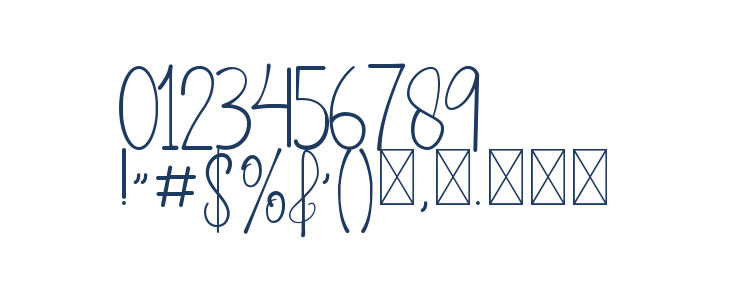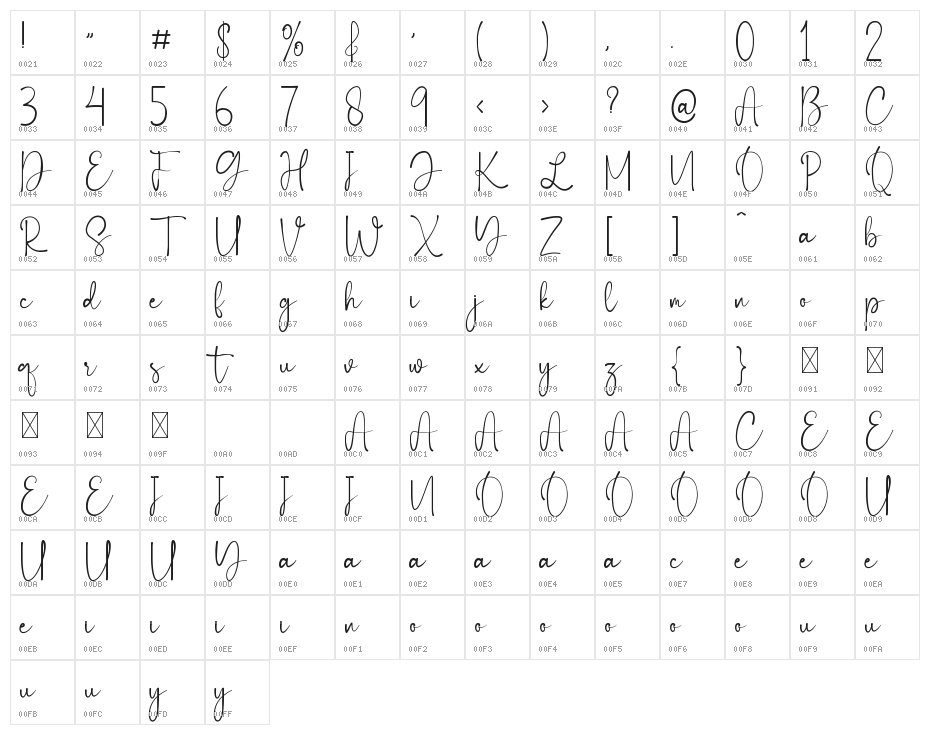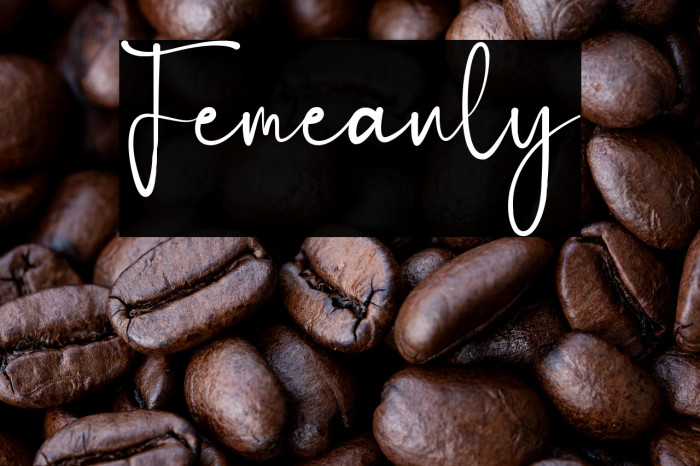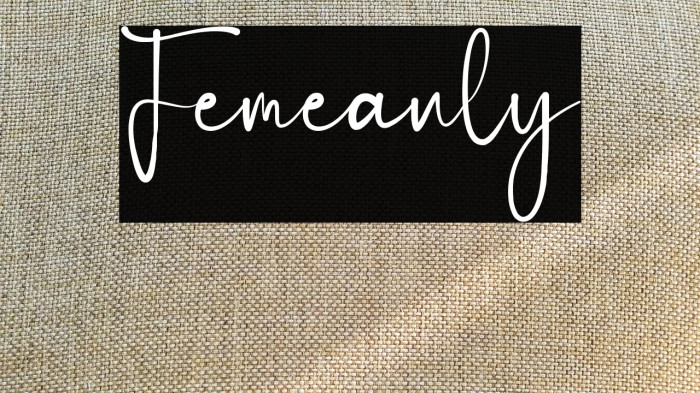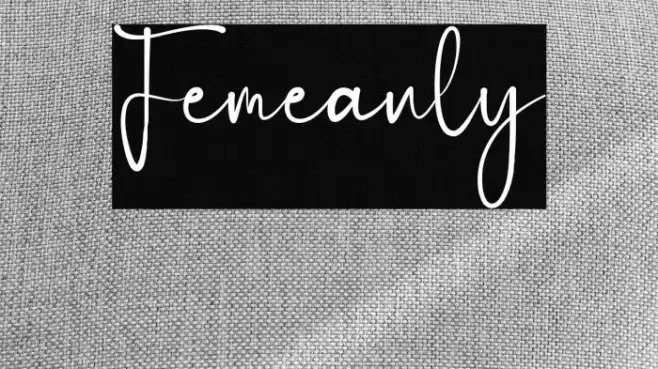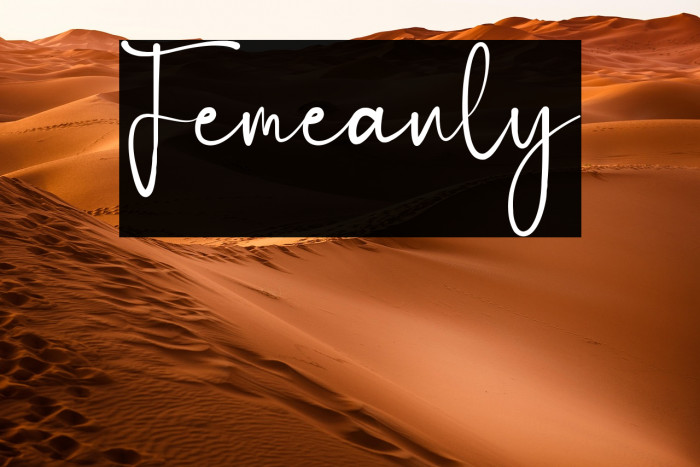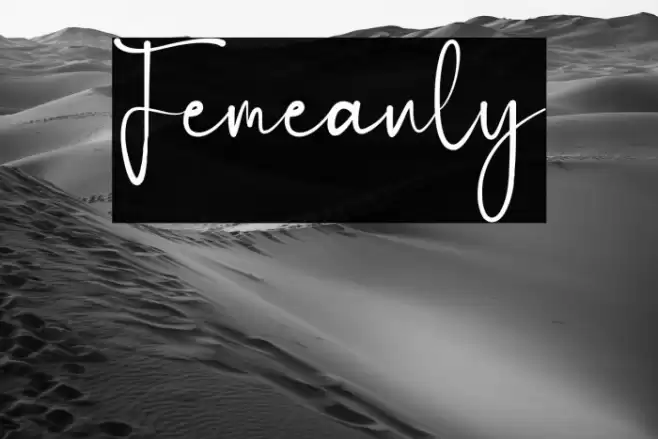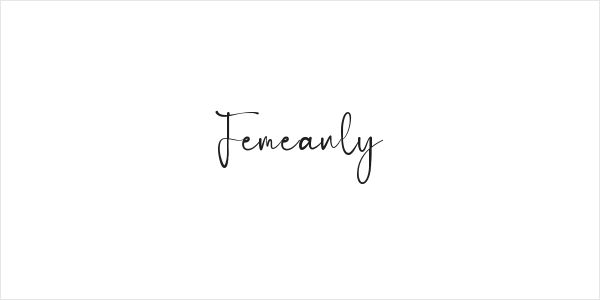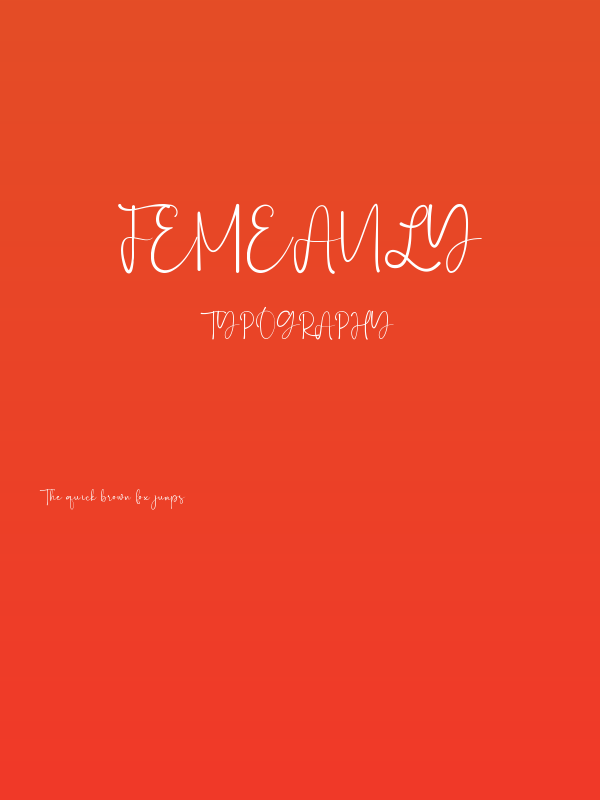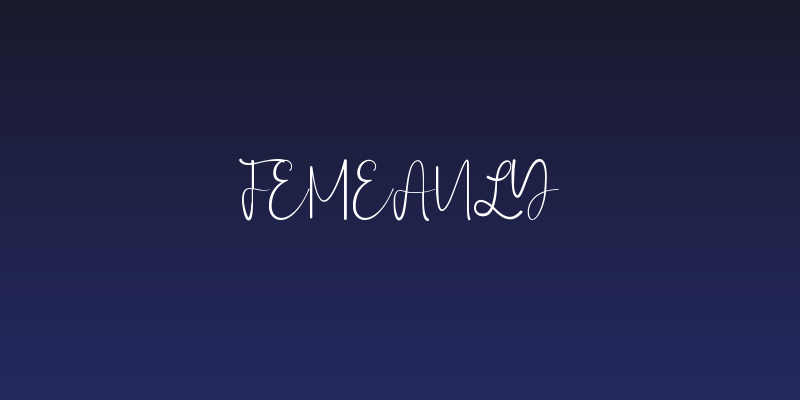
Femeanly Font
Femeanly Description
This font features a playful and elegant handwritten style, characterized by its flowing, cursive letters. The uppercase letters are tall and slender, with unique loops and swirls that add a whimsical touch. The lowercase letters maintain a consistent flow, with some letters extending below the baseline, enhancing its graceful appearance. The numerals are bold and slightly elongated, matching the overall style of the alphabet. Special characters are creatively integrated, maintaining the font's cohesive aesthetic. This font is perfect for projects that require a personal, artistic touch.
| Proposed Projects | Ideal for wedding invitations, greeting cards, personal branding, and artistic projects. |